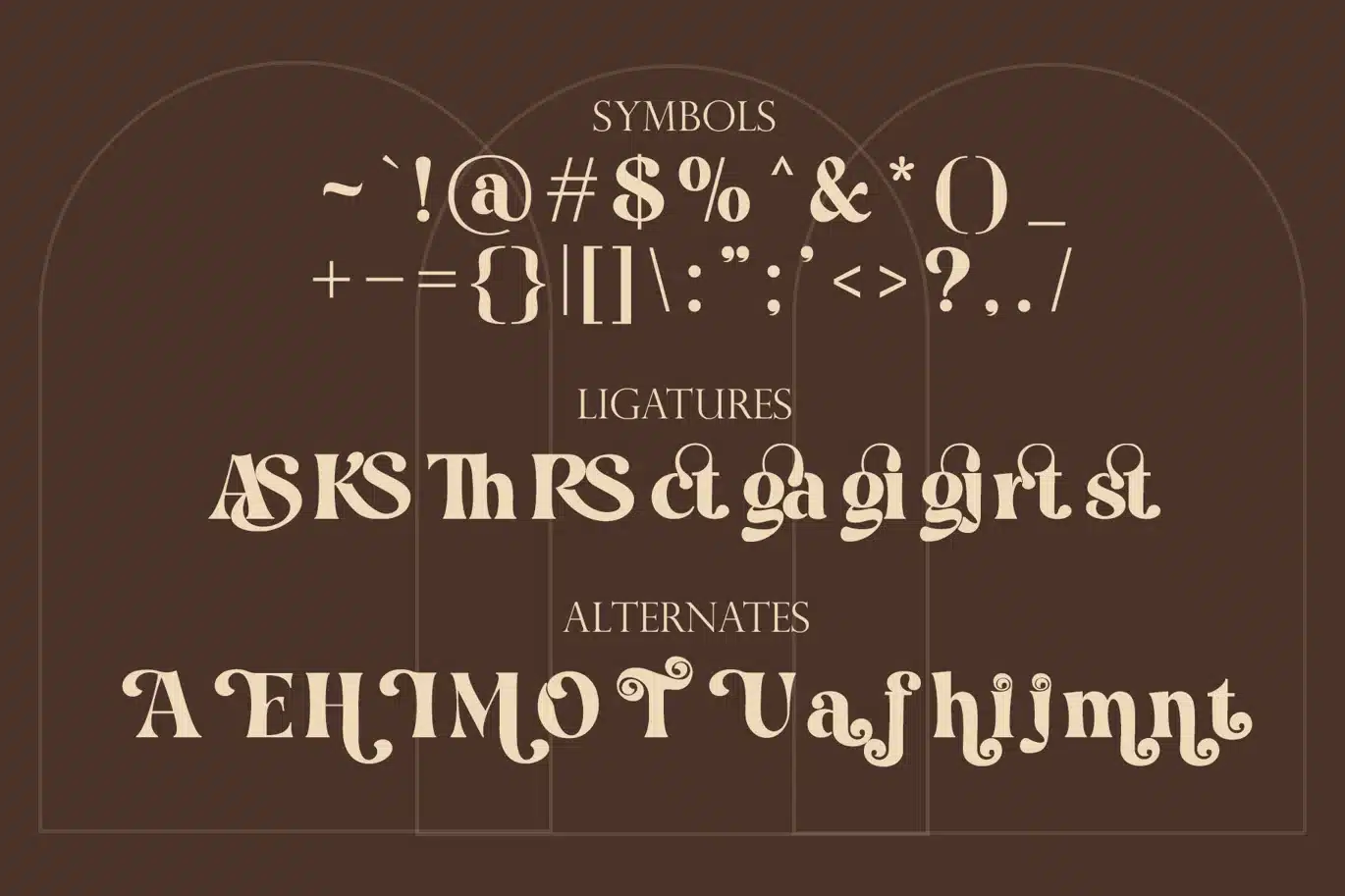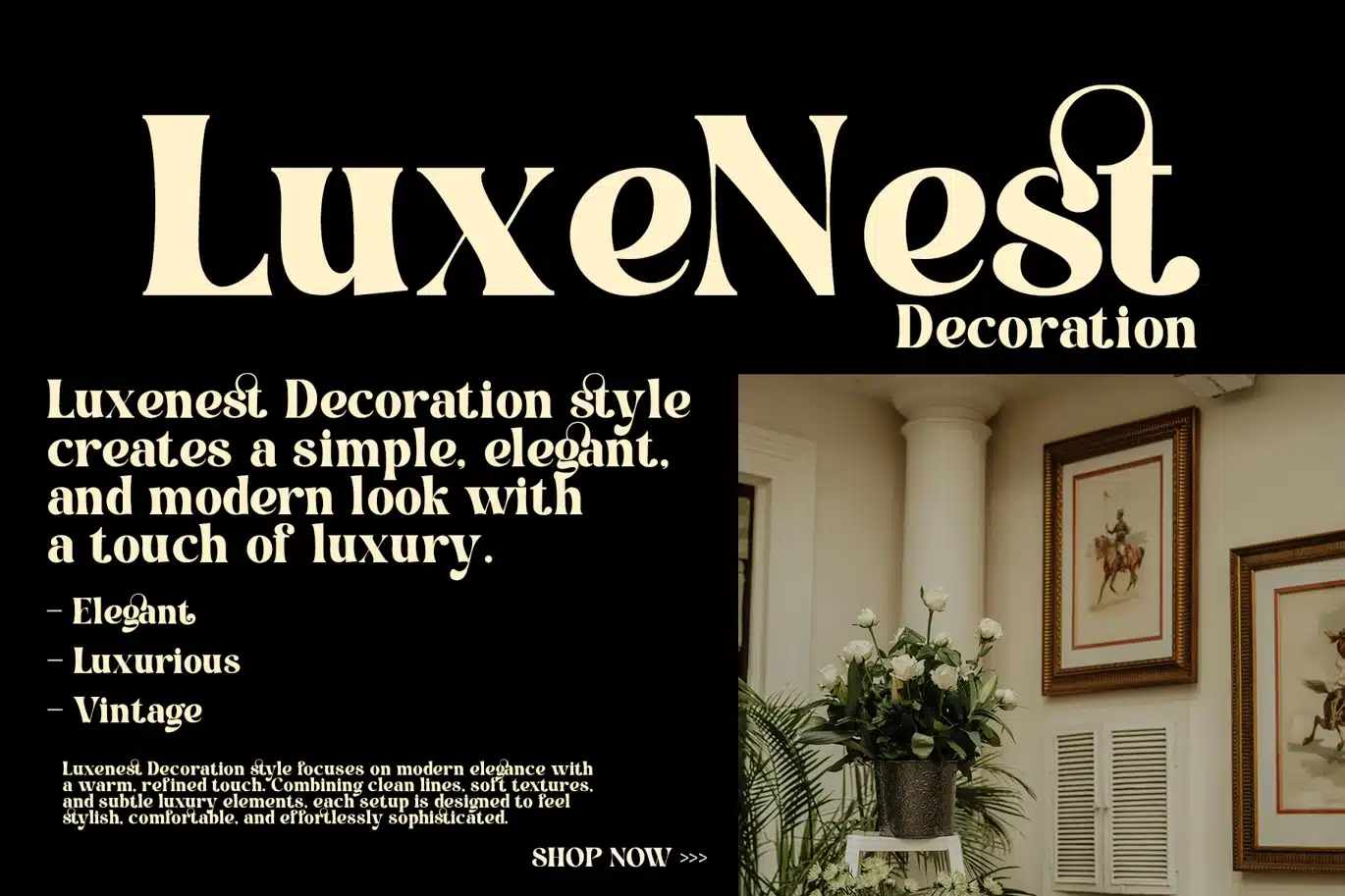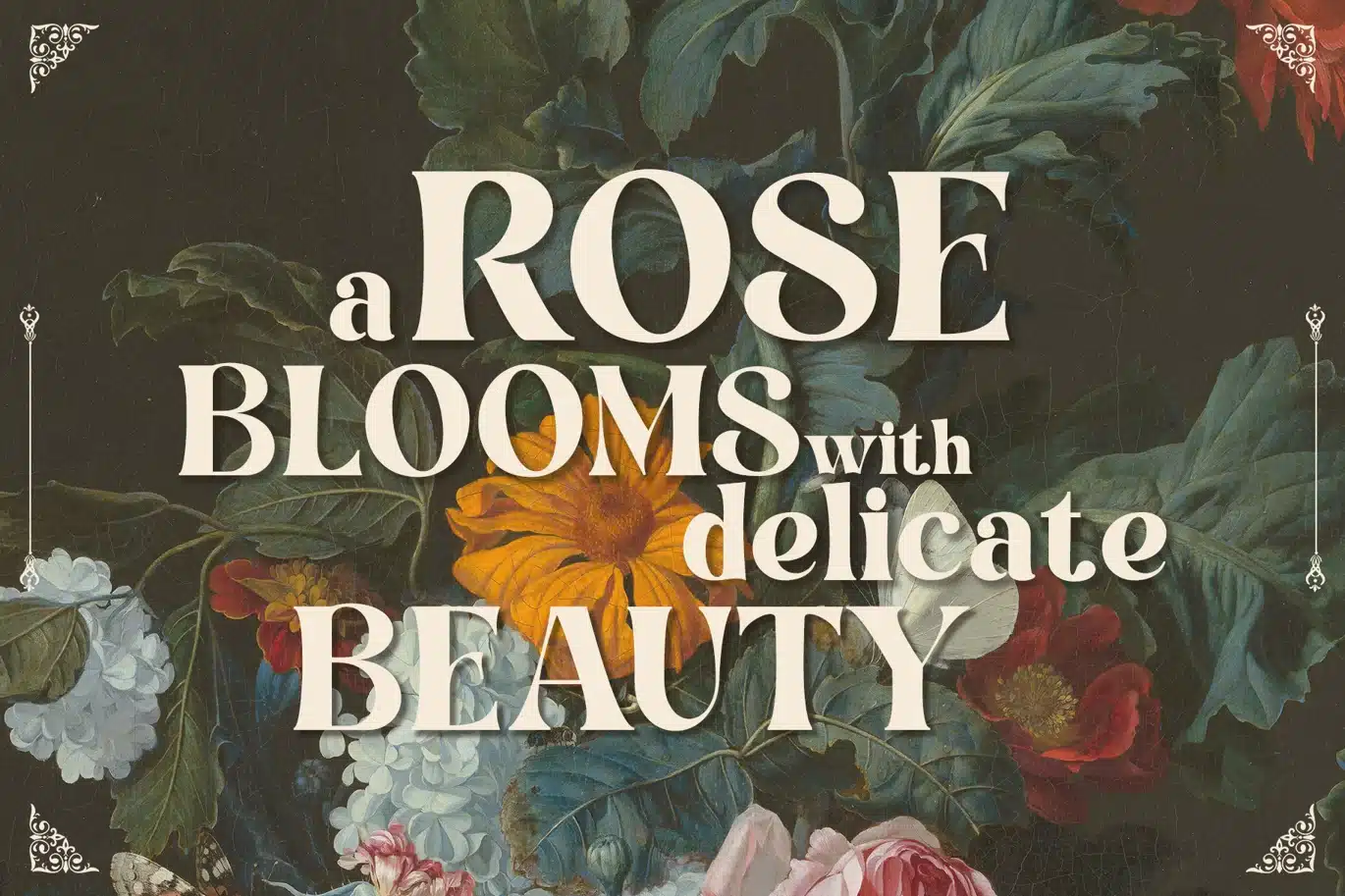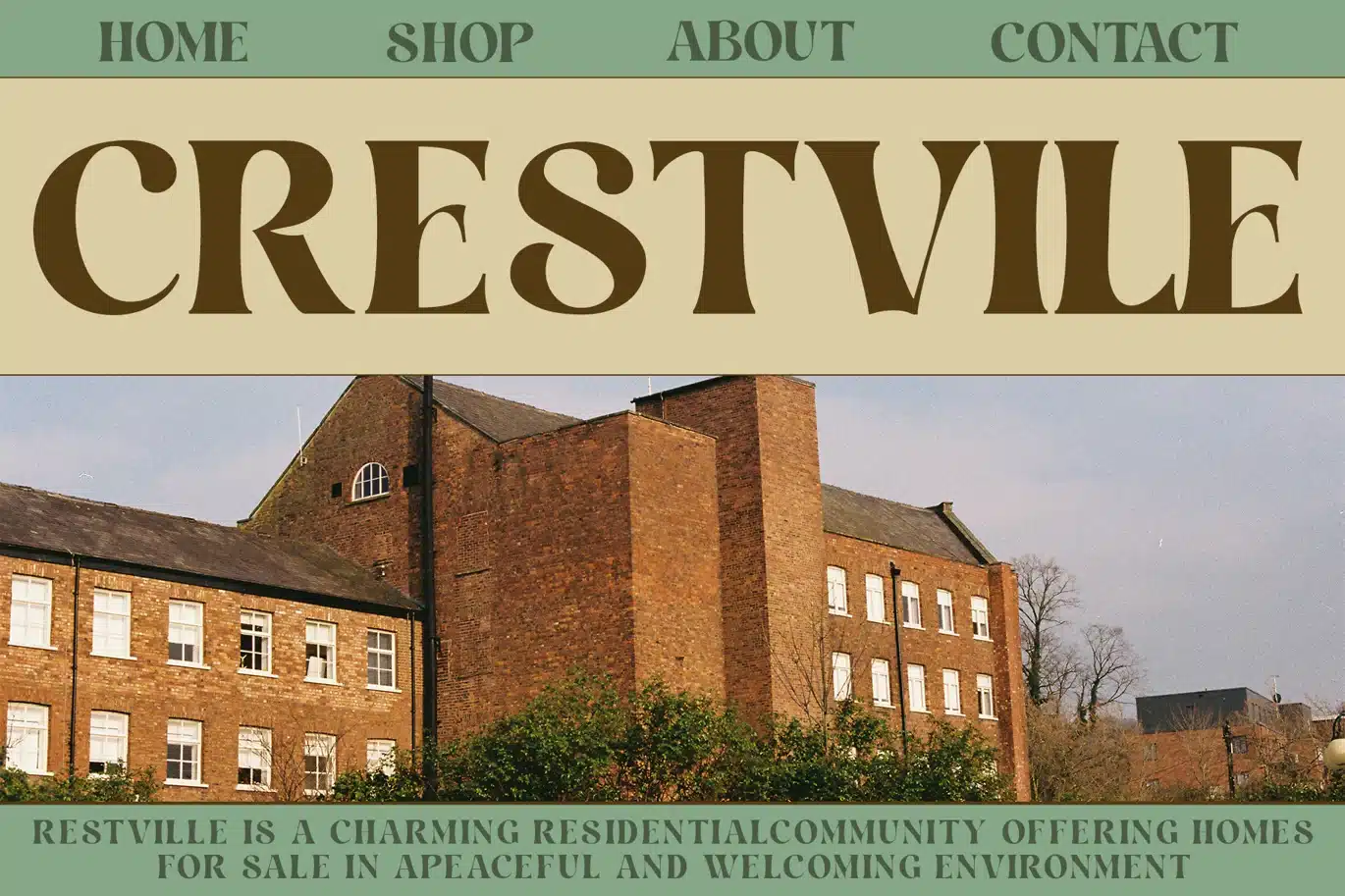
Vintage Serif – Togana Font
Togana is a refined serif typeface that blends classic with subtle contemporary details. Featuring balanced proportions, soft curves, and distinctive terminals, it delivers a graceful and sophisticated appearance across various design contexts.
The typeface includes stylish alternates and ligatures that enhance its visual character while maintaining readability. Its contrast and structure make it suitable for both large display settings and controlled text compositions.
Togana is well-suited for branding, editorial layouts, packaging, logos, and visual identities that require a timeless serif style with expressive details.